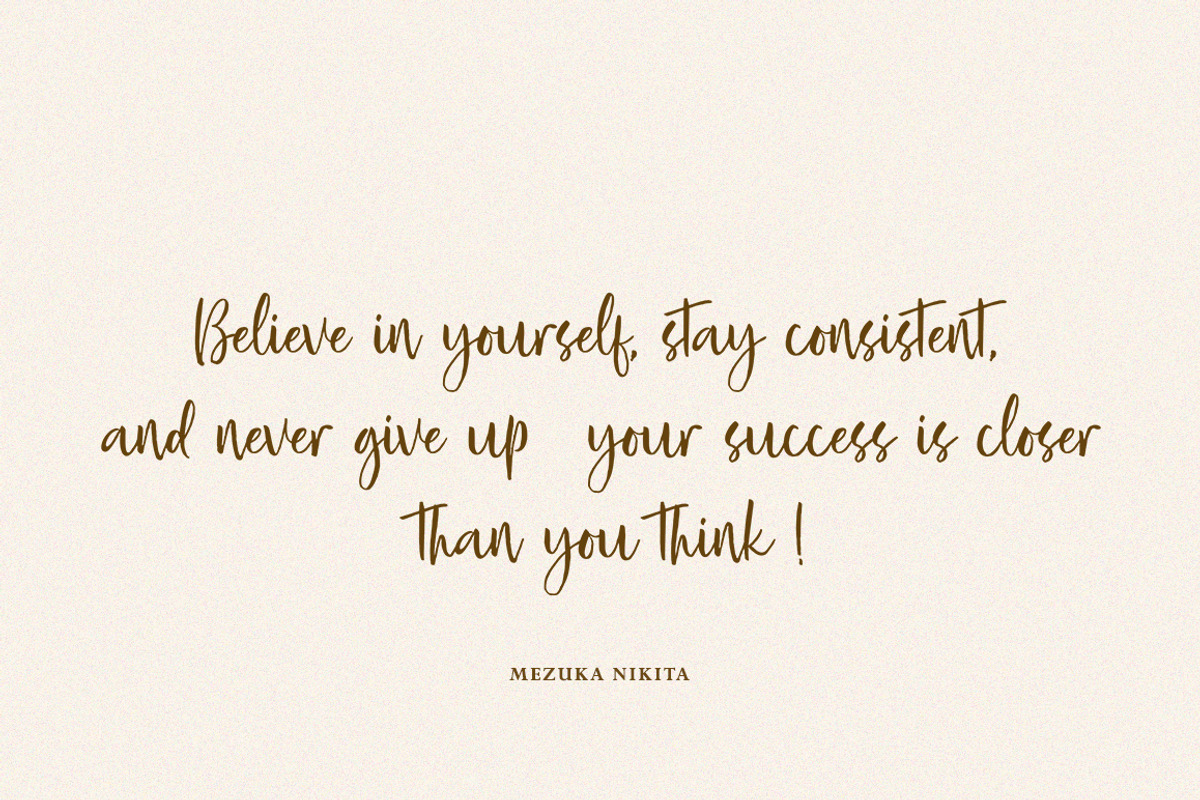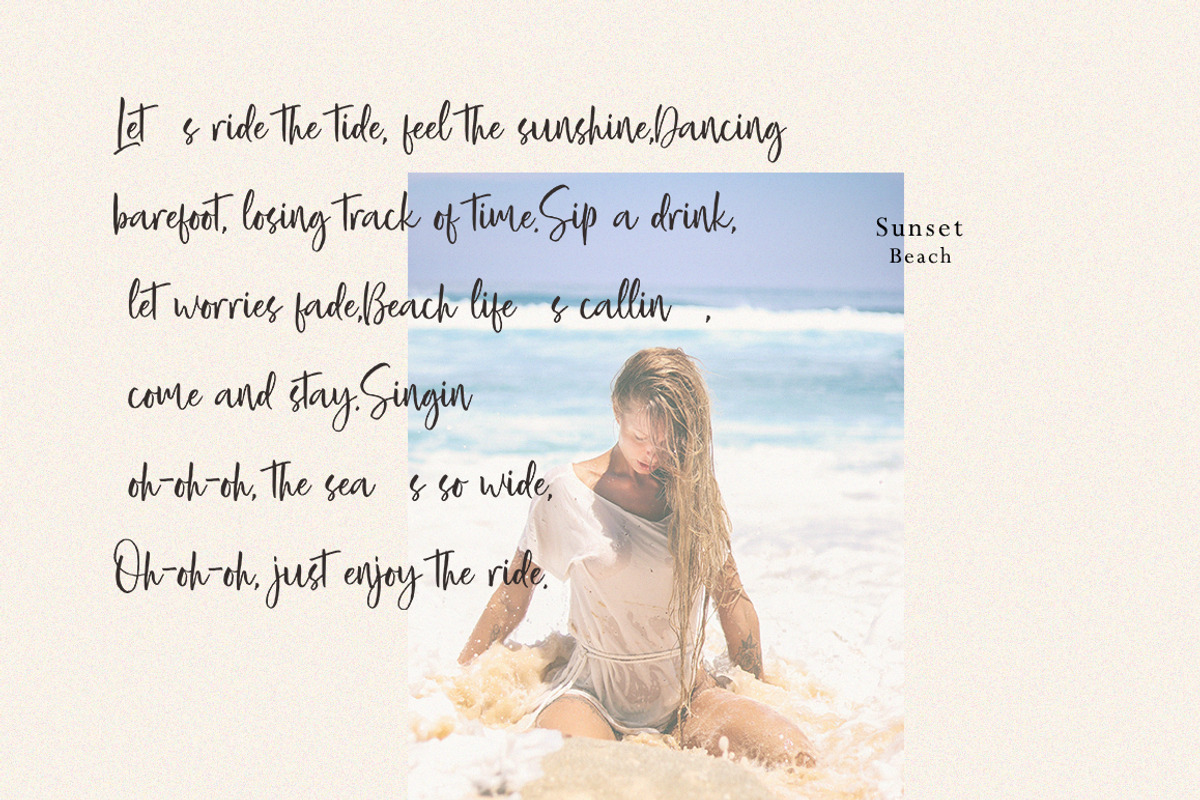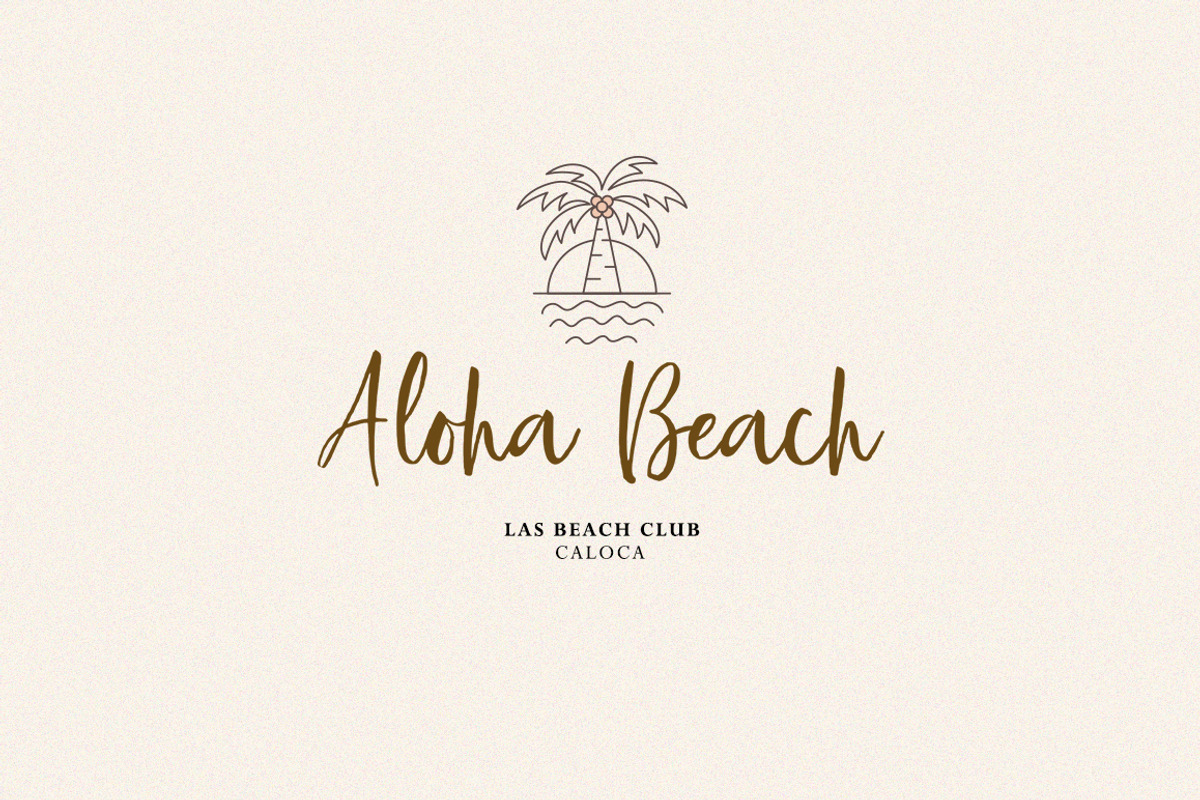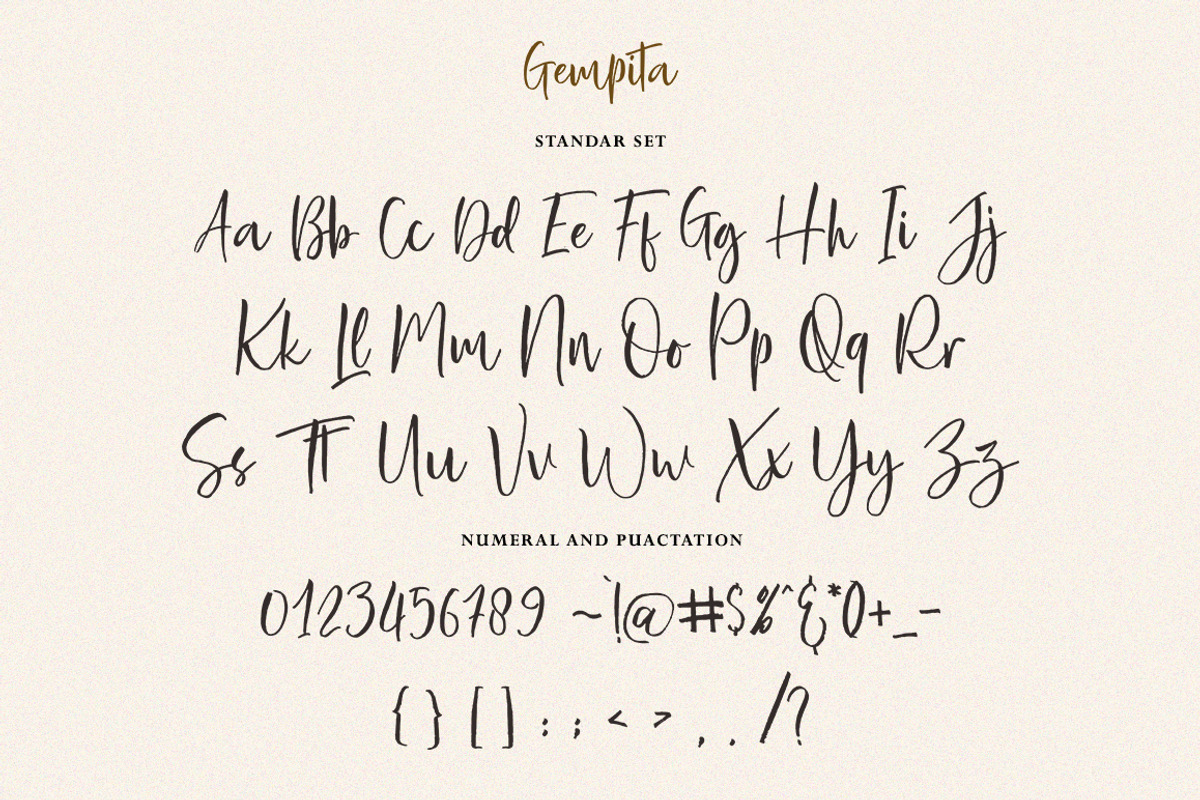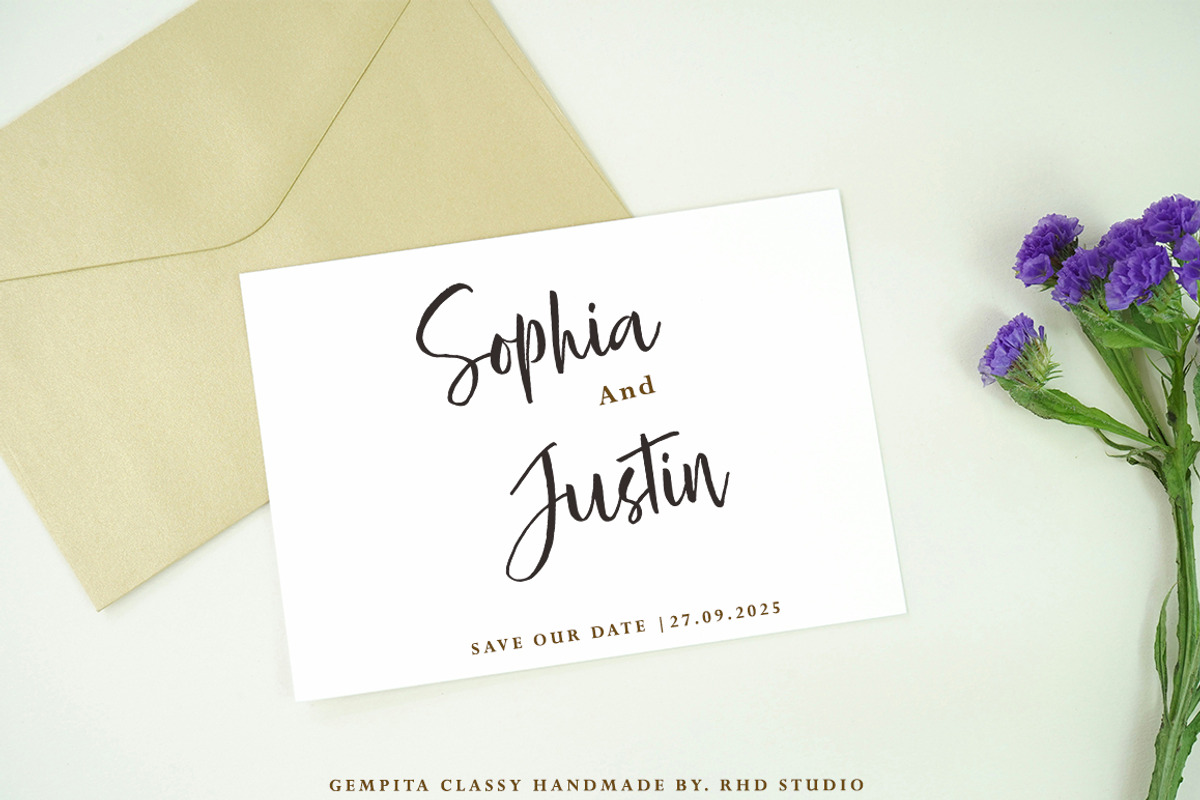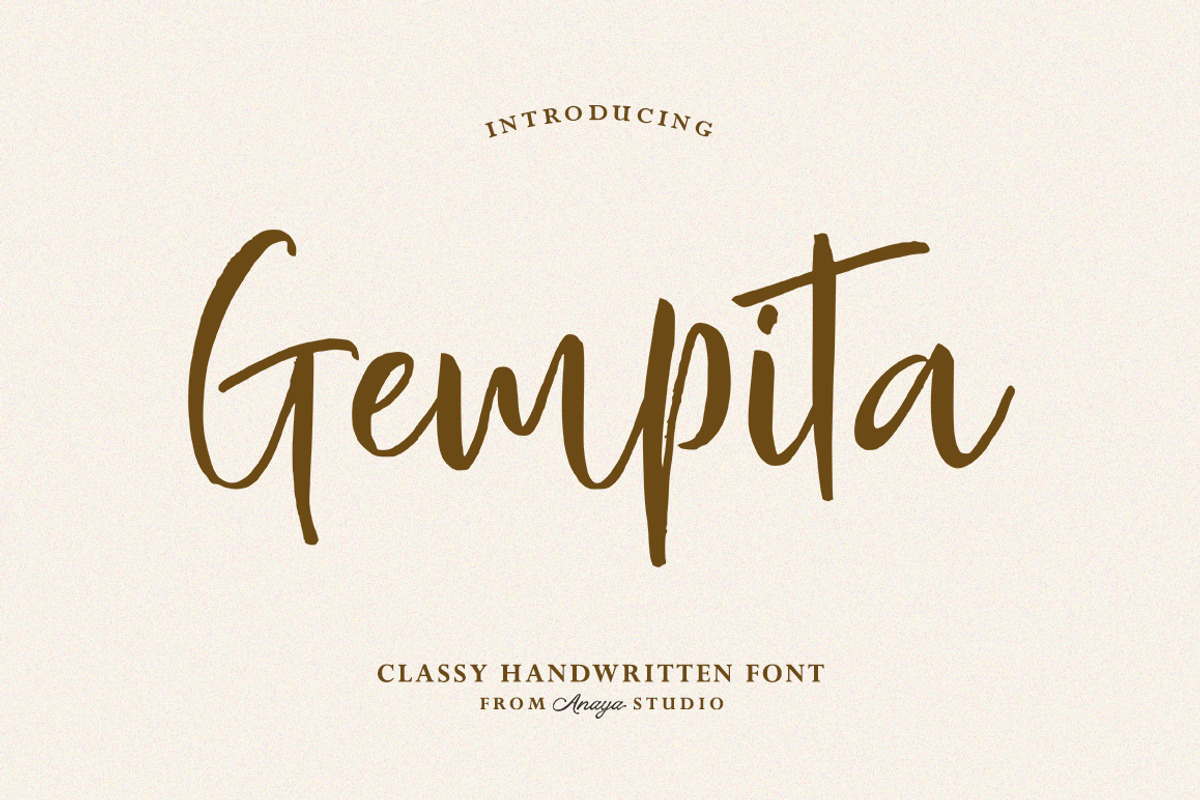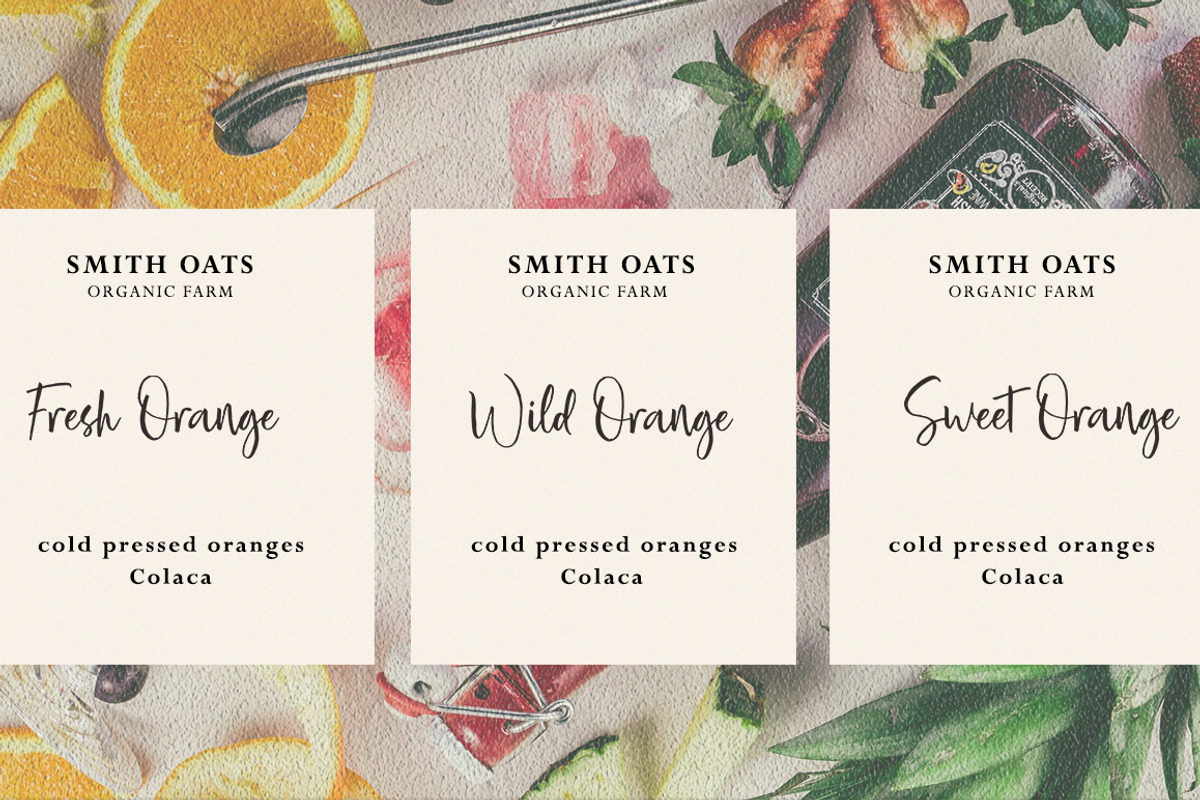
Gempita
Thanks for trying out Gempita! A very fun yet elegant handwritten font with lots of energy, allowing you to create beautiful handmade typography in an instant. With its super bouncy curves & swirls, Gempita is guaranteed to make your text stand out - perfect for logos, printed quotes, invitations, cards, product packaging, headers and anything else you can imagine.